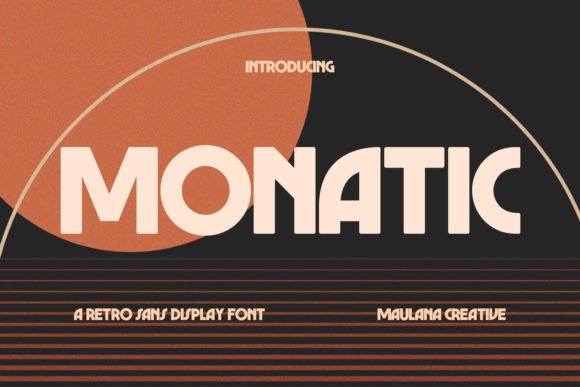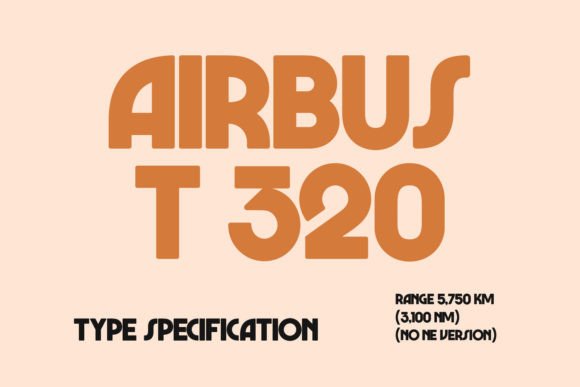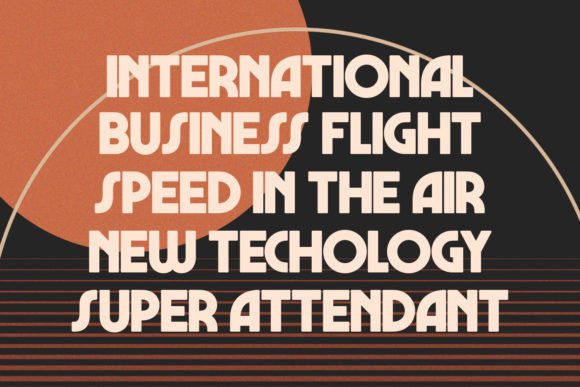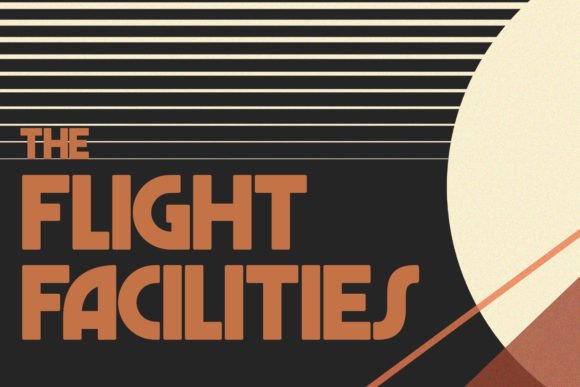
Monatic Font: Bold Retro Sans Serif for Eye-Catching Logo Design
About the Monatic Font
The wait is over! The incredible Monatic Font is now available for your design toolkit. Monatic is an all-caps retros vibe sans display font. Bold stroke, fun character with a bit of ligatures and alternates. To give you an extra creative work. Monatic font support multilingual more than 100+ language. This font is good for logo design, Social media, Movie Titles, Books Titles, a short text even a long text letter and good for your secondary text font with script or serif. Make a stunning work with Monatic font.
Monatic’s bold, playful energy makes it ideal for headlines, posters, and branding projects requiring a retro-inspired aesthetic. It works exceptionally well for short, impactful text, such as logos, social media graphics, and short-form content. However, its strong character and all-caps nature make it less suitable for body text or UI elements where readability is paramount. Avoid using it for lengthy paragraphs.
Pairing Monatic effectively depends on the desired effect. For a balanced contrast, consider pairing it with a clean sans-serif like Open Sans for body copy, or a more elegant serif like Merriweather for a sophisticated feel. A script font like Great Vibes can add a touch of vintage charm, enhancing Monatic’s retro vibe.
Ultimately, Monatic’s personality is best described as bold and fun, making it a great choice for brands seeking a retro-inspired, attention-grabbing aesthetic. Projects with a playful, energetic, or vintage feel will benefit from its distinctive character.